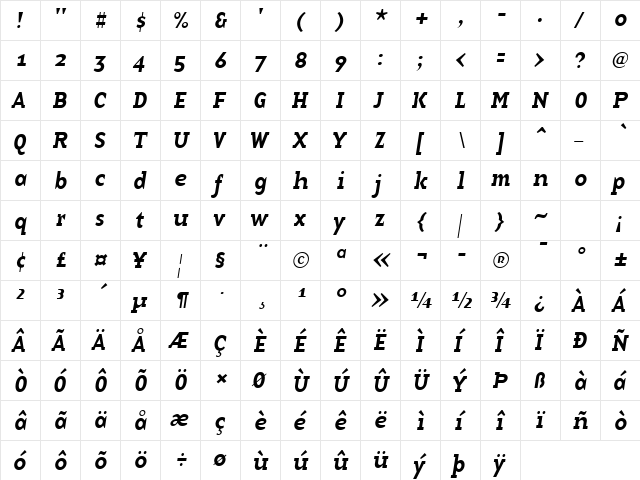
BaseTwelveSerif, Italic Regular Font Preview
BaseTwelveSerif, Italic Regular
BaseTwelveSerif, Italic Regular Font Details
Design Context for BaseTwelveSerif, Italic Typeface
BaseTwelveSerif, Italic carries the refined structure of traditional serif typography, with bracketed terminals and considered proportions that communicate credibility and craft. Its italic angle brings a sense of urgency and motion to the letterforms.